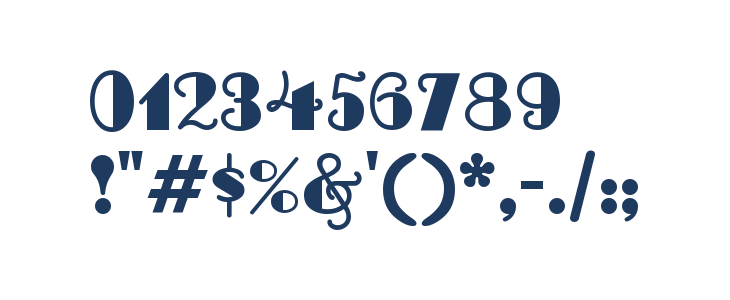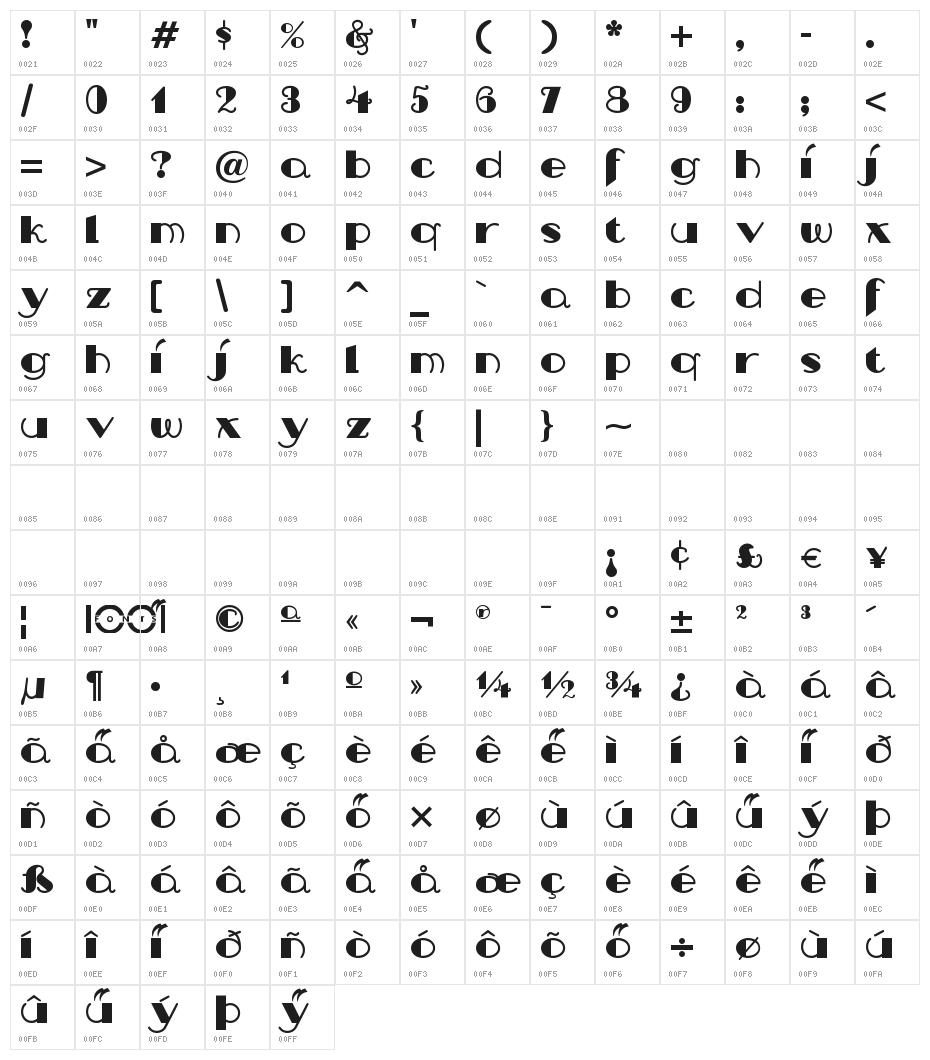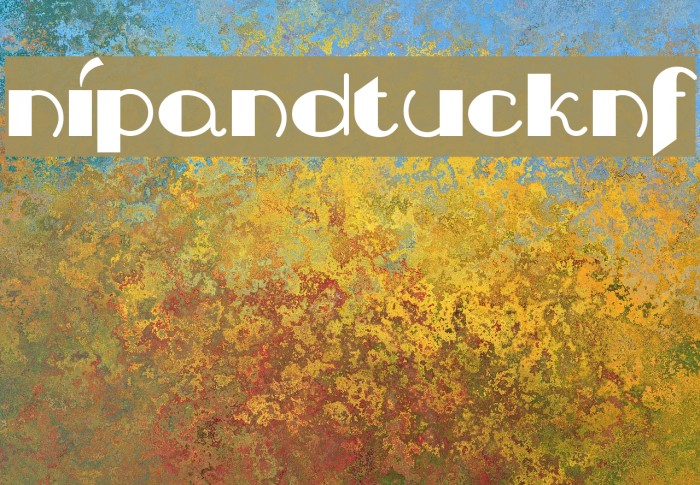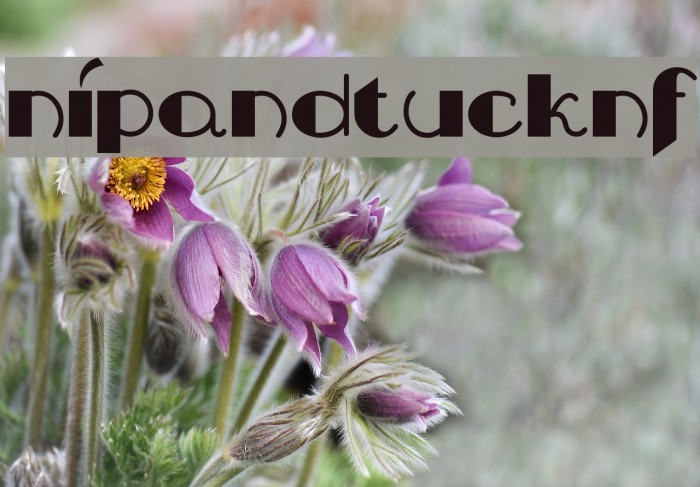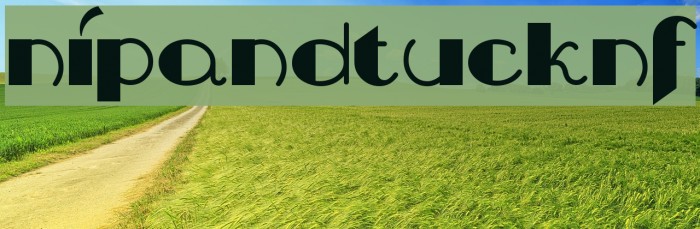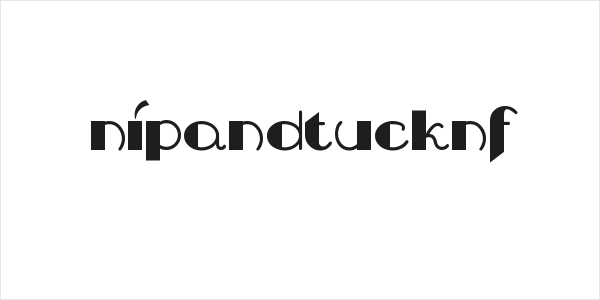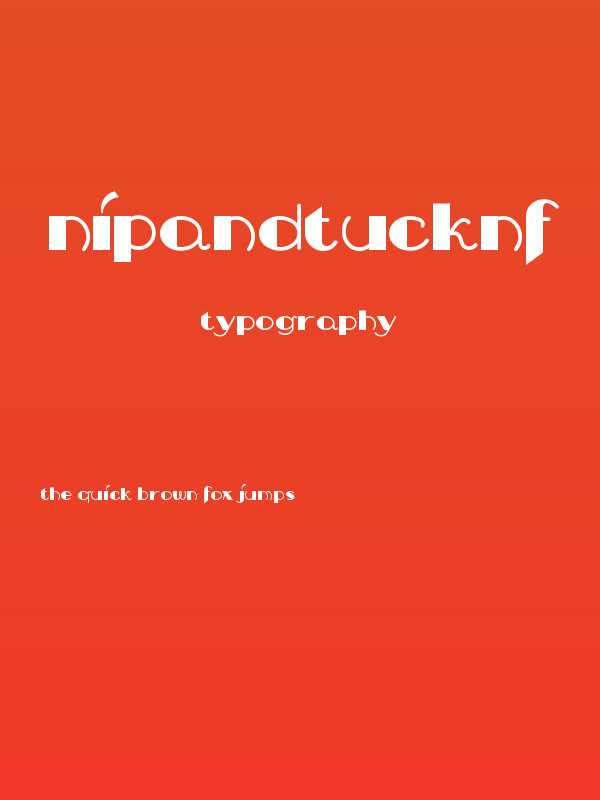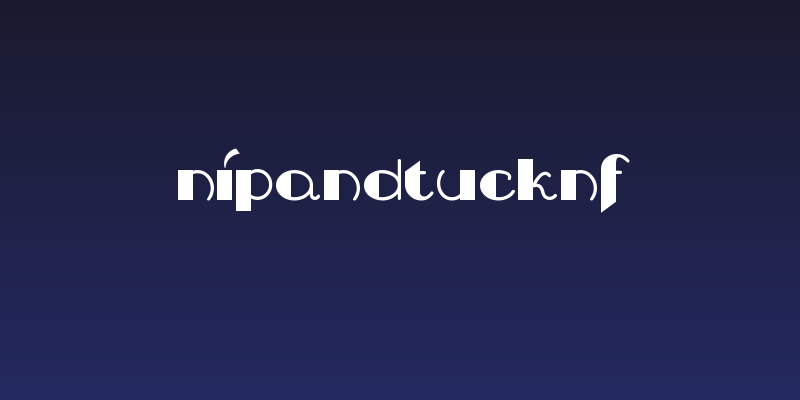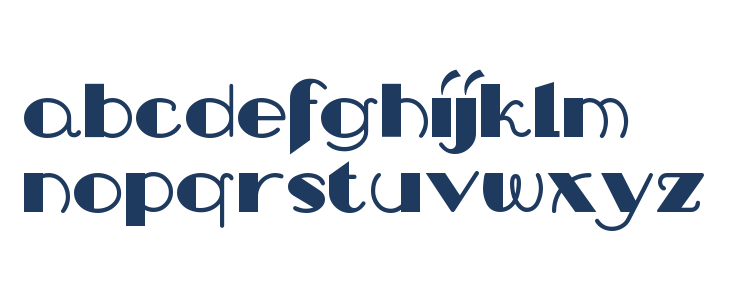
This font features a unique blend of geometric and decorative elements, characterized by its bold and playful style. The letters exhibit a mix of thick and thin strokes, creating a dynamic and eye-catching appearance. The lowercase letters have a distinctive flair, with some characters incorporating unexpected curves and angles. The uppercase letters maintain a consistent boldness, enhancing the font's overall impact. The numbers and special characters follow the same stylistic approach, ensuring a cohesive look across all glyphs. This font's design is both modern and retro, making it versatile for various creative applications.
| Overall Style | Modern, Retro |
| Proposed Projects | Ideal for branding, poster design, and creative projects that require a bold and distinctive typeface. |